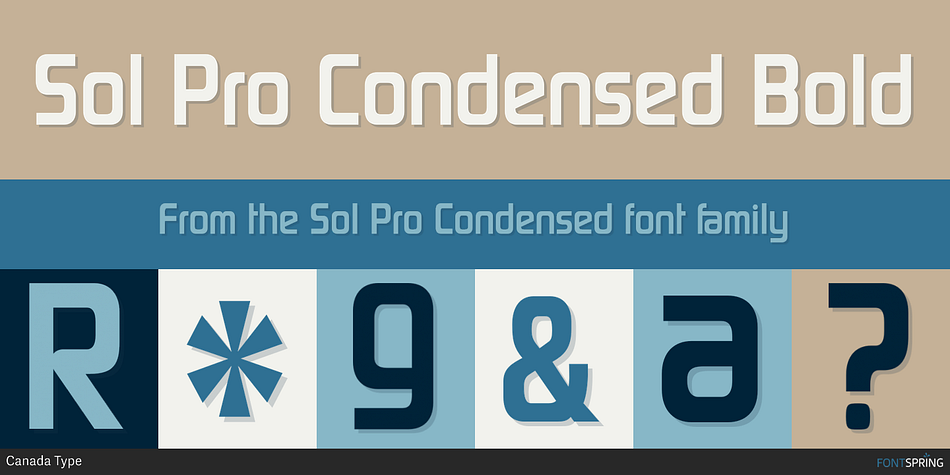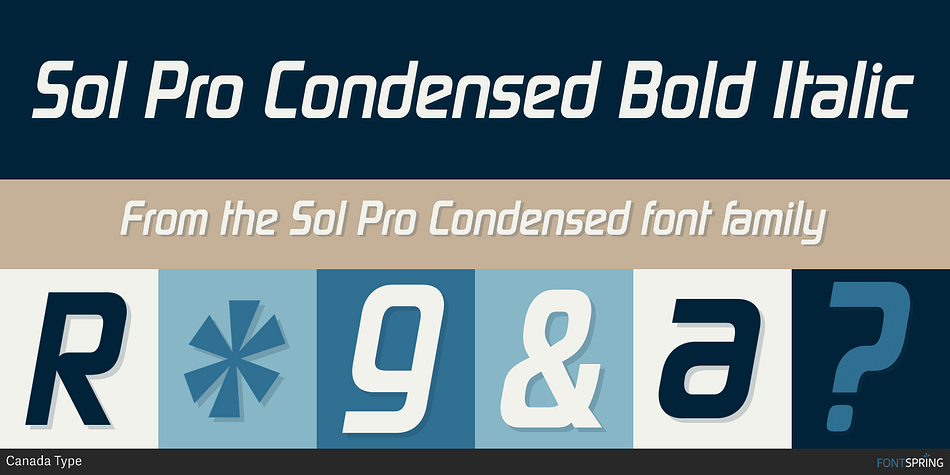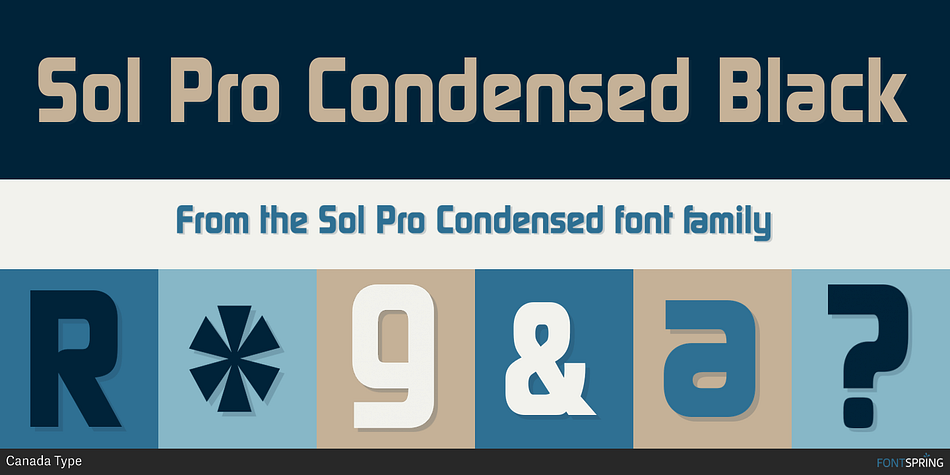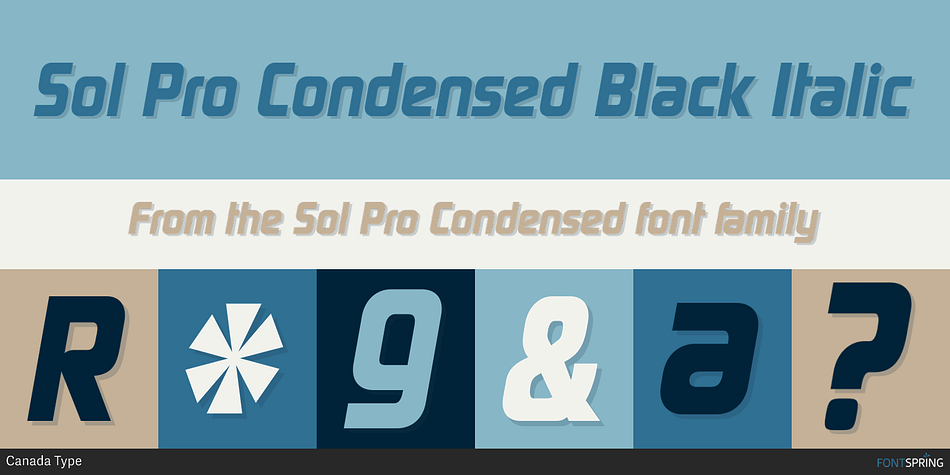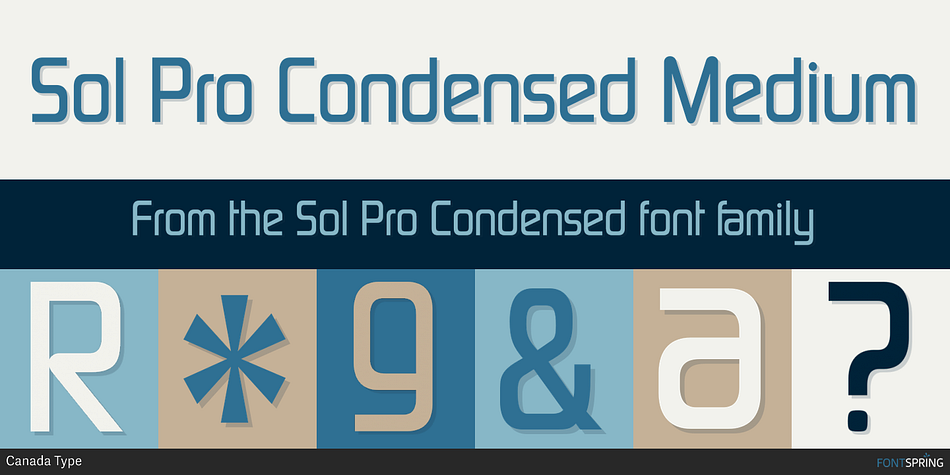
Sol Pro Condensed is a sans serif font family. This typeface has ten styles and was published by Canada Type.
Based on the classic Sol design by Marty Goldstein and C.B. Smith, published by VGC in 1973, Sol Pro goes above and beyond the call of revival/retooling to include plenty of optical improvements to the original design, more weights, italics, small caps, biform shapes, alternates, and extended language support.
This particular design is one of the more prominent forefathers and strong influencers of the soft, streamlined aesthetic that has been going strong in branding and geometric design for more than 40 years now. It cuts all links to melancholy and classic empire shapes, and introduces smooth contrast modulation that communicates sleek, adaptable youth, confidence, knowledge, and modern hi-tech presence. This is not your grandfather’s Eurostile. This is your offspring’s global hope, optimism, and total awareness.